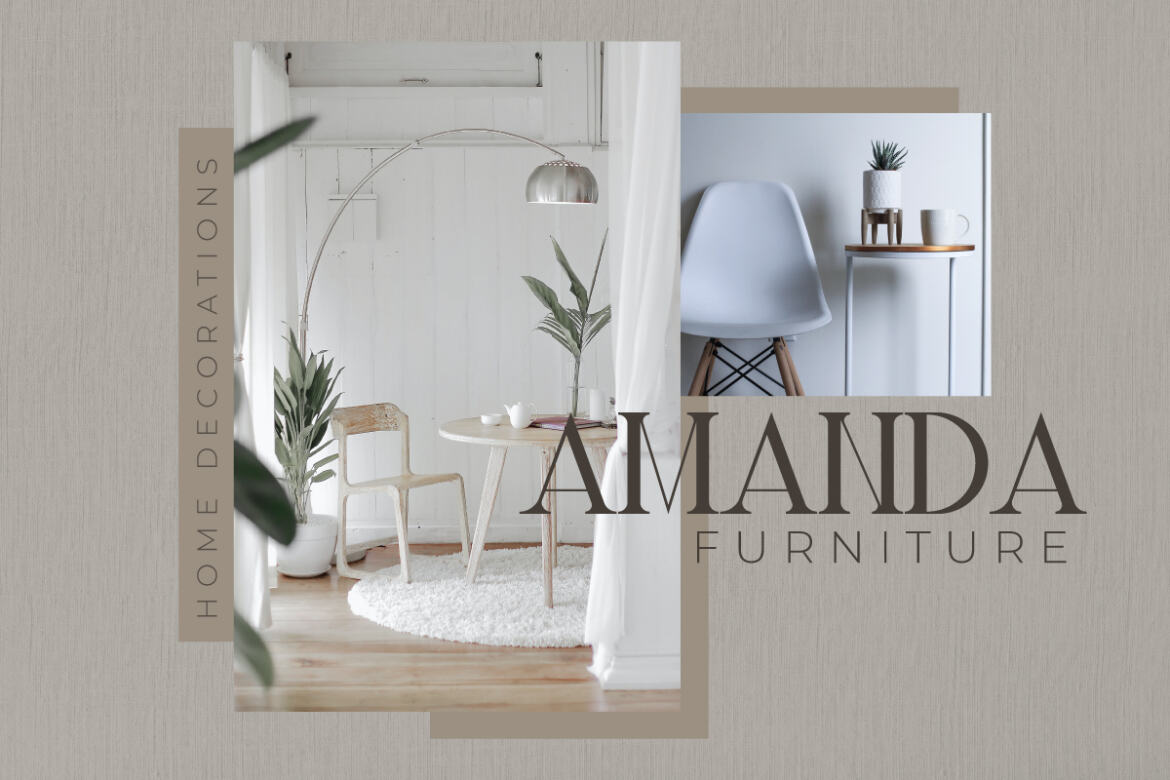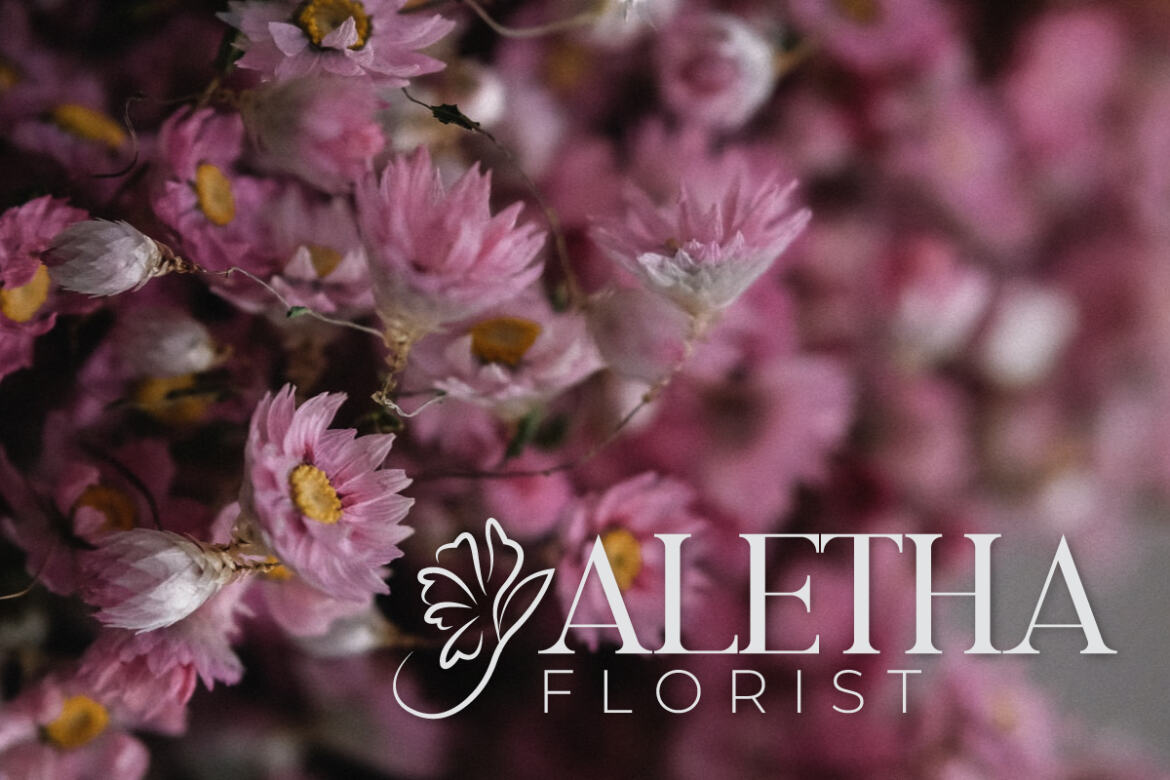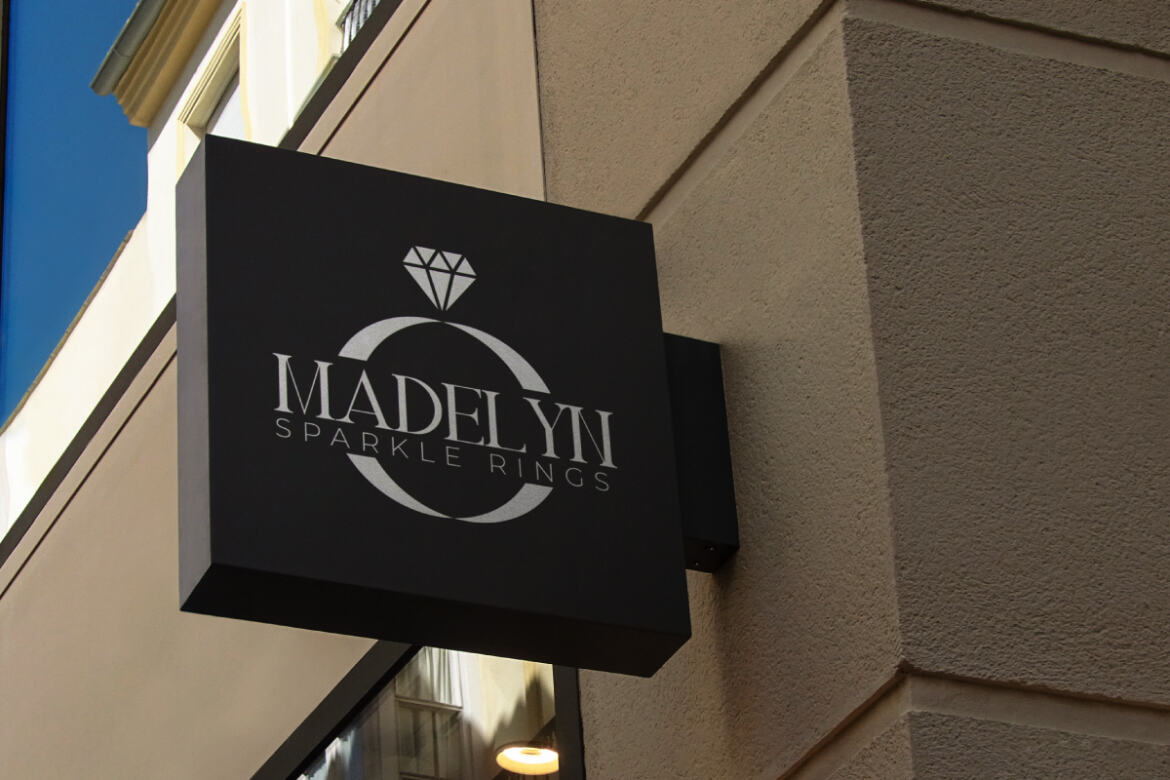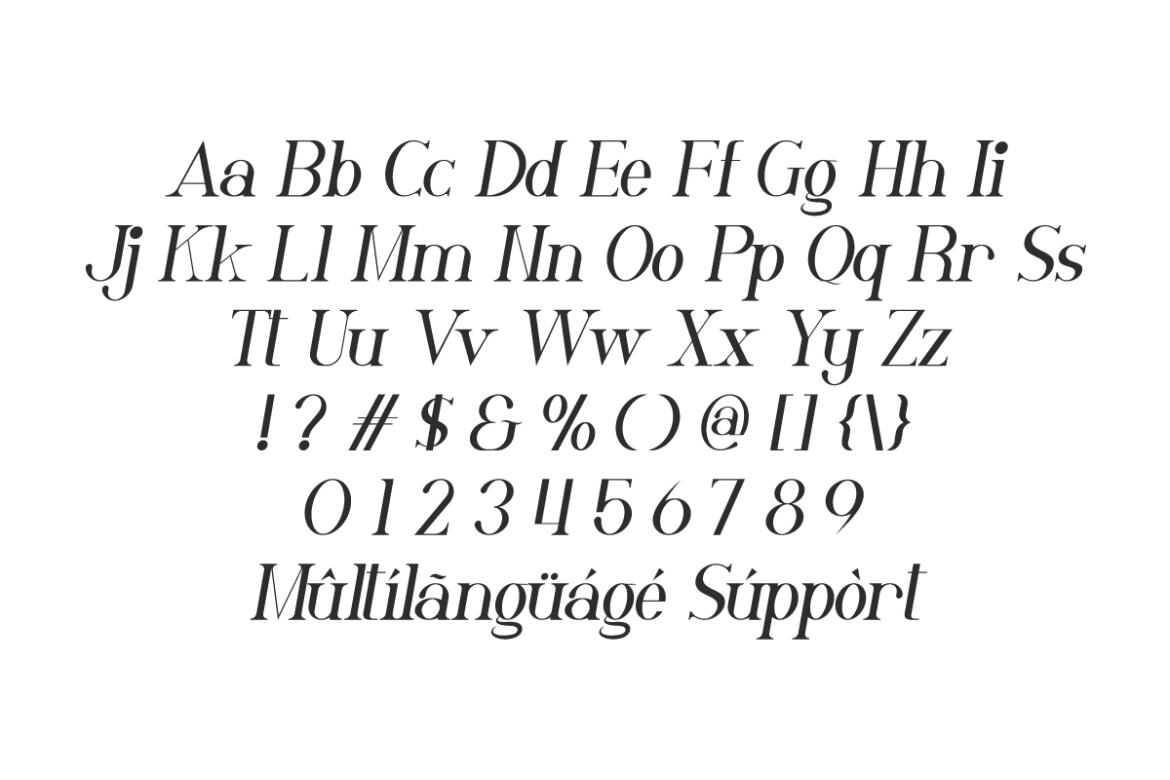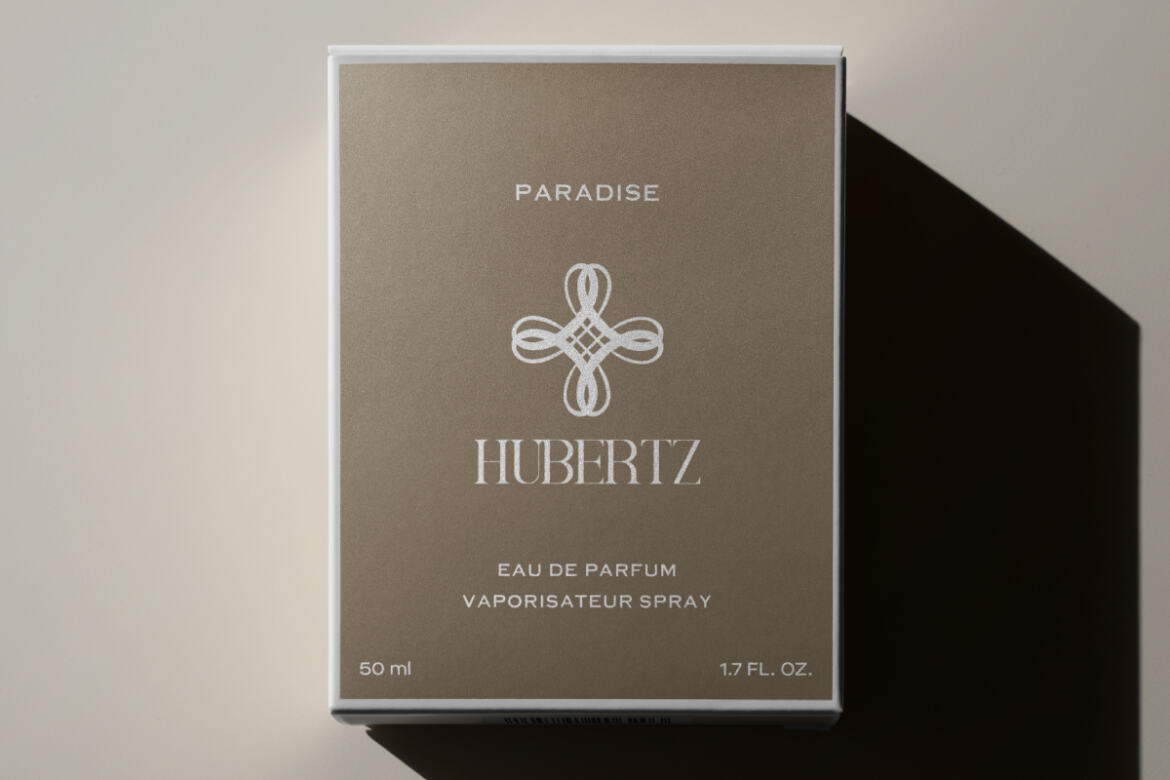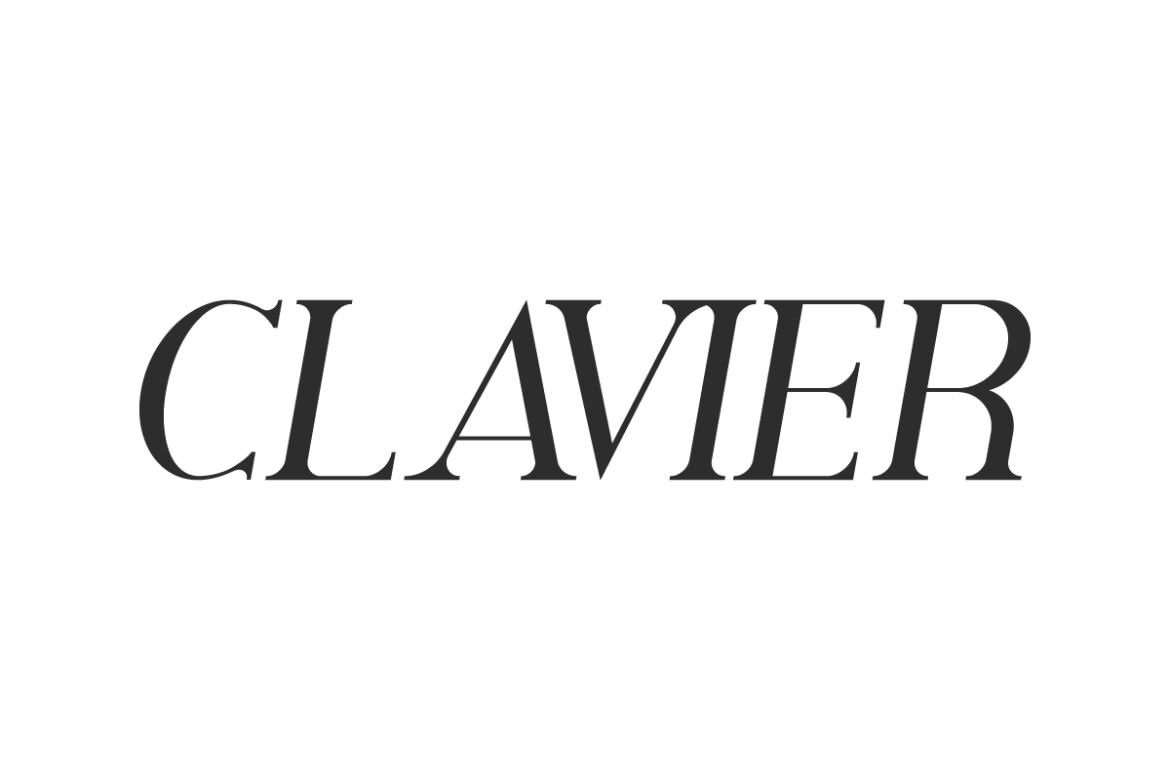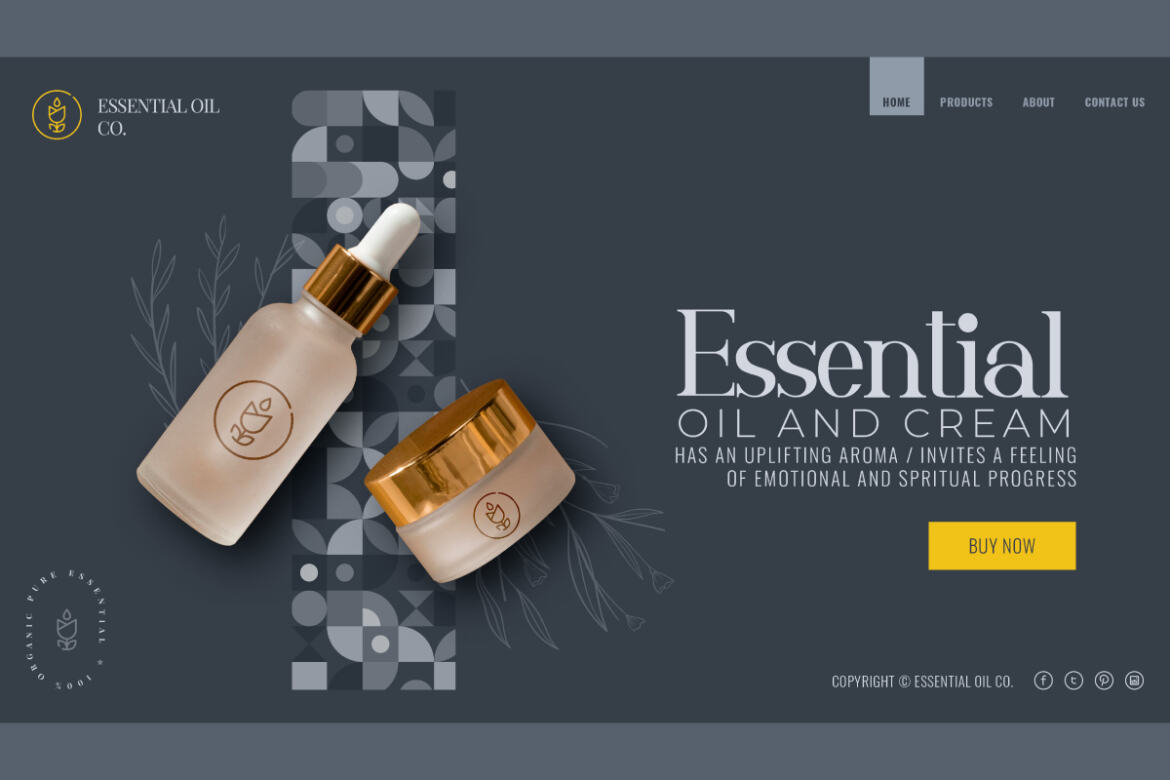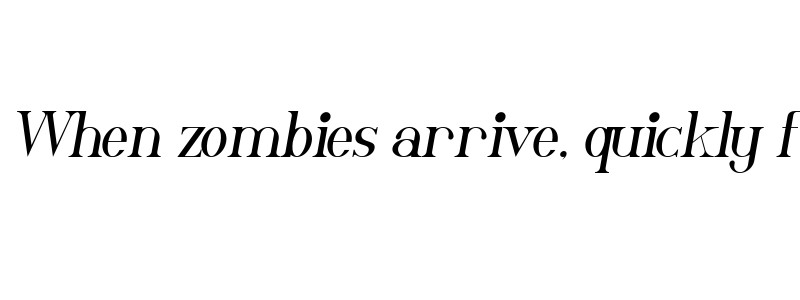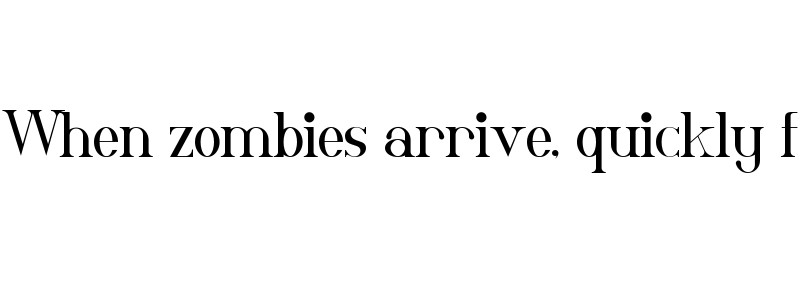
Clavier - FREE Serif Font
Clavier Italic preview
Clavier Italic
Clavier preview
Clavier
Clavier Font comes with a classy style appearance on the letters. This font has two styles: Regular and Italic. After purchase, On the zip package you will get :
Clavier Font will be great for any projects including : business card, cosmetic, invitation, logo branding, products packaging, signage, stationery, etc. This font comes with a full set of characters, uppercase and lowercase letters, numbers and punctuations. Clavier Font had been tested Work on PC & Mac. This font has a stunning characters set, perfectly managed with well spaced and kerning. Accessible in the Adobe Illustrator, Adobe Photoshop, Adobe InDesign, even work on Microsoft Word. It’s also PUA Encoded Characters – Fully accessible without additional design software.